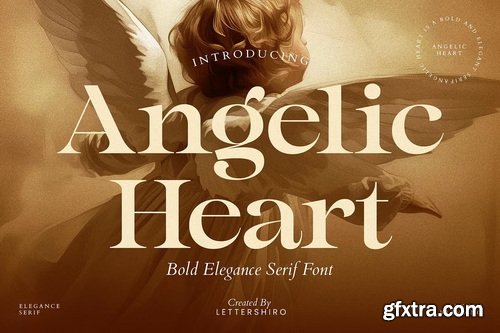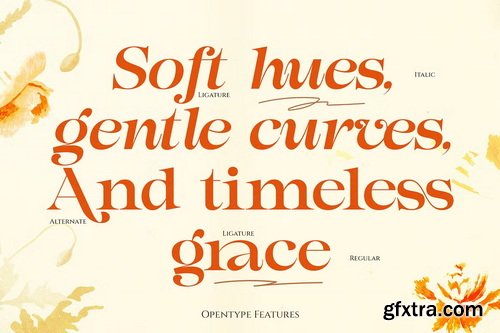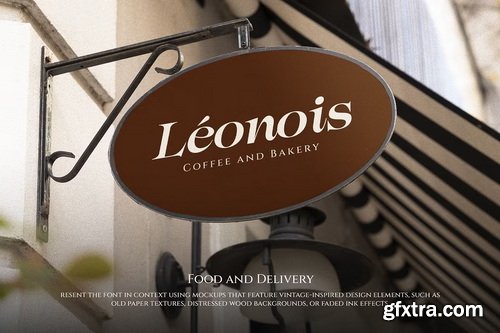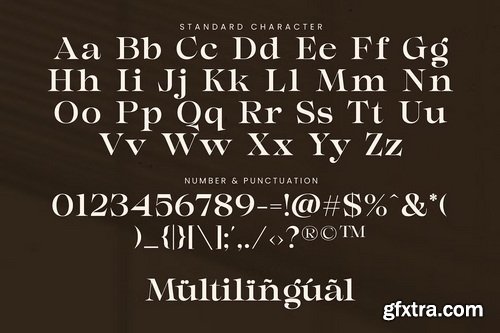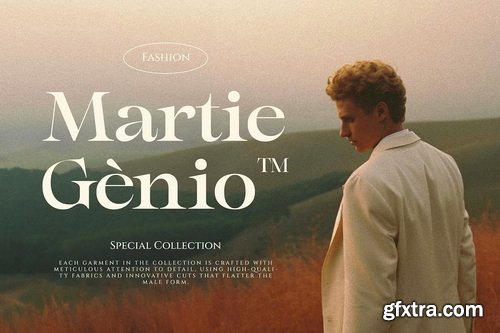
- Angelic Heart is a bold elegant serif font designed to deliver a luxury and timeless aesthetic to your creative work. Crafted with refined letterforms and modern proportions, this typeface embodies sophistication, elegance, and visual strength. It’s a perfect blend of classic serif charm and sleek modern design—ideal for upscale branding and standout typography. Available in Regular and Italic styles, Angelic Heart is suitable for both professional and creative applications. Whether you're designing a luxury logo, editorial headline, wedding invitation, or branding, this font brings a graceful and polished look to every project.
- From high-end packaging to modern magazine layouts, Angelic Heart adapts beautifully across formats, it elevates your design with a touch of romance, drama, and bold presence—making it the ideal choice for creatives aiming for premium results.